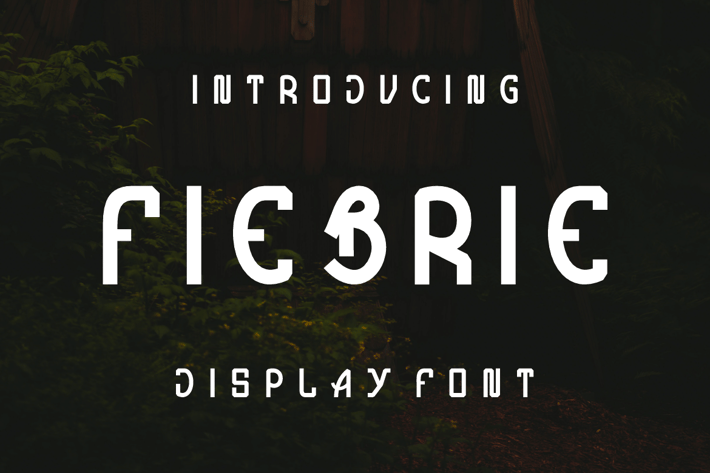
FIEBRIE Font
Introducing our new product FIEBRIE Font - Modern Font
FIEBRIE Font - Modern Font is a bold and authentic display font. The font is suitable for any branding project like logo, t-shirt printing, esport, and many more. outstanding in a wide range of contexts.